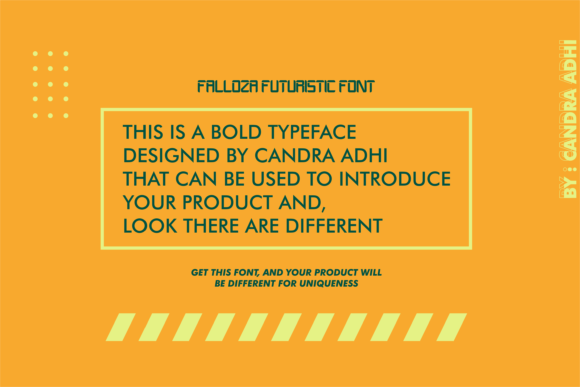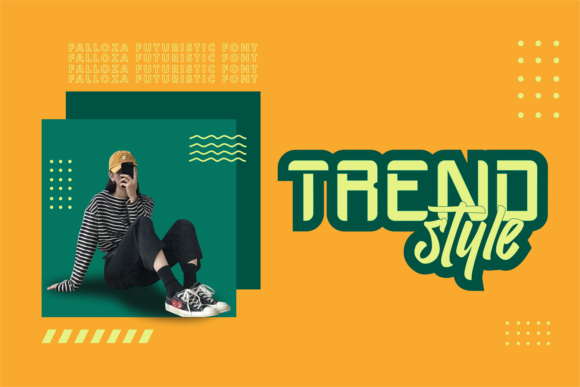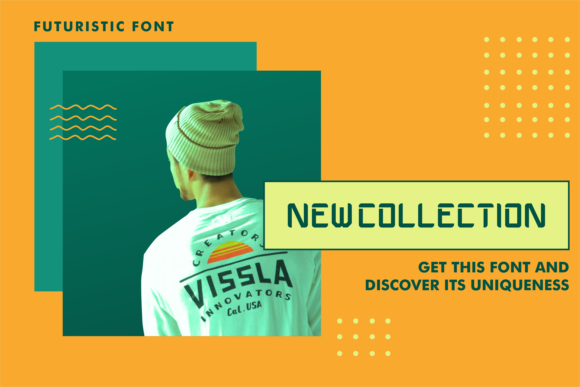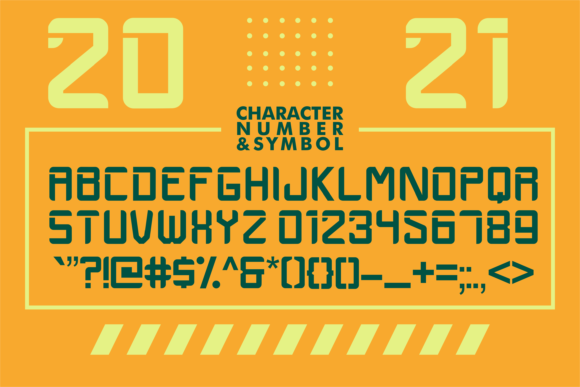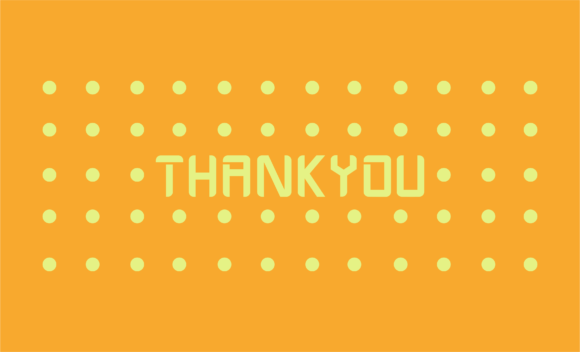
Falloza Font: The Ultimate Futuristic Display Font for Modern Designs
In the world of typography, fonts play a crucial role in conveying the tone and personality of a brand or design. With the ever-evolving landscape of digital design, the demand for modern and assertive fonts has increased significantly. This is where Falloza Font comes into play – a futuristic, bold, and robotic display font designed to elevate your designs to the next level.
What is Falloza Font?
Falloza Font is a carefully crafted display font that embodies the essence of futurism and modernity. Its bold and robotic design makes it an ideal choice for creating stunning web designs, business cards, and other visual materials that require a strong and assertive presence.
Key Features of Falloza Font
- Futuristic Design: Falloza Font boasts a futuristic design that is sure to grab attention. Its sleek and modern aesthetic makes it perfect for designs that require a cutting-edge look.
- Bold and Assertive: The font’s bold and assertive personality makes it an excellent choice for creating designs that demand attention.
- Robotic Style: The robotic style of Falloza Font adds a touch of industrial chic to your designs, making it ideal for tech-related brands and products.
- High Versatility: Falloza Font is highly versatile and can be used for a wide range of design applications, from web designs and business cards to posters and packaging.
Use Cases for Falloza Font
Falloza Font is an incredibly versatile font that can be used in various design applications. Here are some of the most popular use cases:
- Web Design: Use Falloza Font to create stunning website headers, titles, and buttons that demand attention.
- Business Cards: Add a touch of modernity and professionalism to your business cards with Falloza Font.
- Posters and Flyers: Create eye-catching posters and flyers with Falloza Font that are sure to grab attention.
- Packaging Design: Use Falloza Font to create bold and modern packaging designs that stand out on store shelves.
Benefits of Using Falloza Font
Using Falloza Font in your designs offers numerous benefits, including:
- Instant Recognition: The bold and assertive design of Falloza Font ensures instant recognition and grabs attention.
- Modern Aesthetic: Falloza Font adds a touch of modernity and futurism to your designs, making them look cutting-edge and up-to-date.
- Improved Legibility: The font’s clear and clean design ensures excellent legibility, even at small sizes.
- Time-Saving: With Falloza Font, you can create stunning designs in no time, saving you valuable time and effort.
Tips for Using Falloza Font Effectively
To get the most out of Falloza Font, here are some tips to keep in mind:
- Use it Sparingly: Use Falloza Font sparingly to create emphasis and draw attention to specific elements in your design.
- Pair it with Other Fonts: Pair Falloza Font with other fonts to create a unique and visually appealing typography.
Falloza Font is a powerful and versatile display font that is perfect for modern designs. Its futuristic, bold, and robotic design makes it an excellent choice for creating stunning web designs, business cards, and other visual materials. With its high versatility, ease of use, and excellent legibility, Falloza Font is a must-have for designers and crafters looking to elevate their designs to the next level.